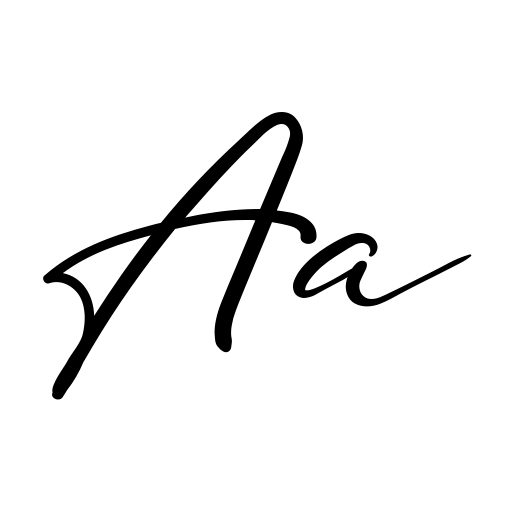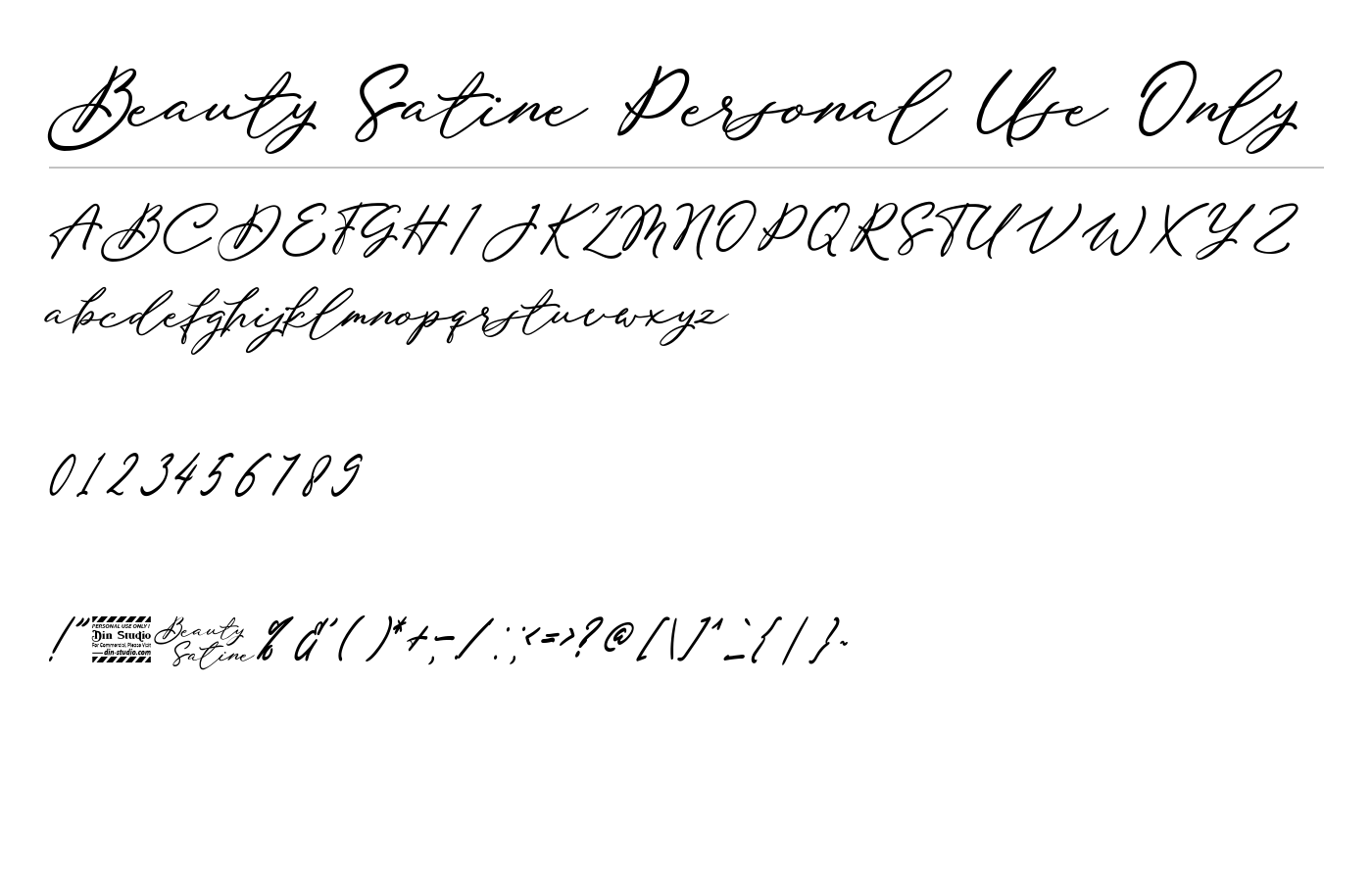
Beauty Satine Personal Use Only Font is a delicate and elegant script typeface with a handwritten feel, featuring smooth, flowing strokes and fine lines that create a graceful and intimate impression. Its slender, slightly condensed letterforms with high contrast and single-story characters make it perfect for adding a touch of sophistication to invitations, branding, and feminine design projects. This font works beautifully in headlines, logos, and elegant packaging where a personal, refined style is desired.
Beauty Satine Personal Use Only Font
About Beauty Satine Personal Use Only Font